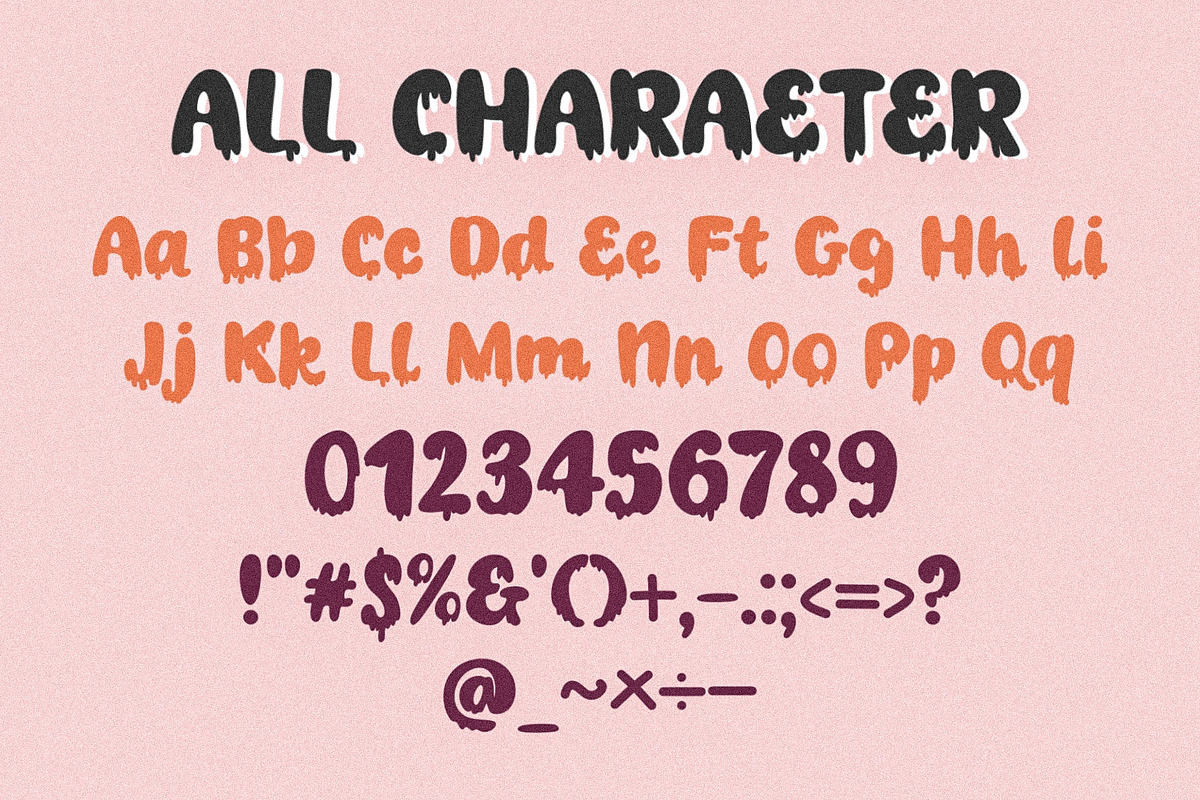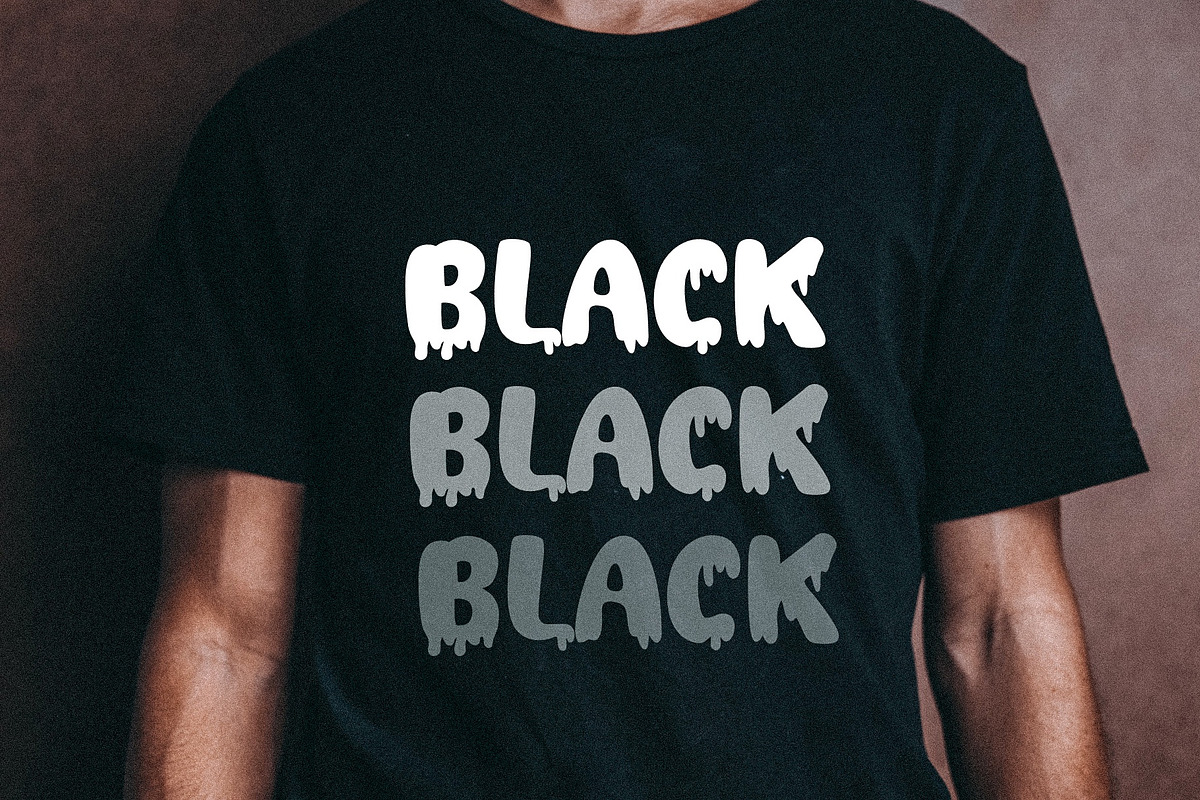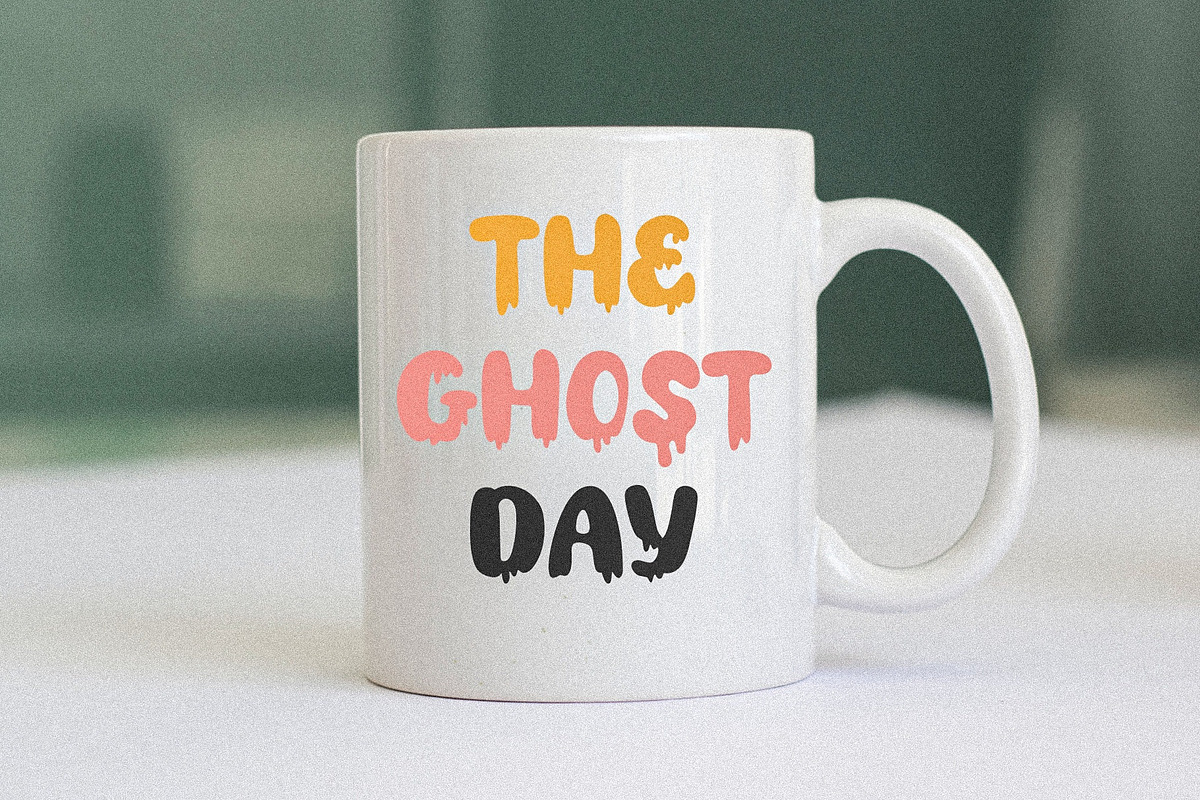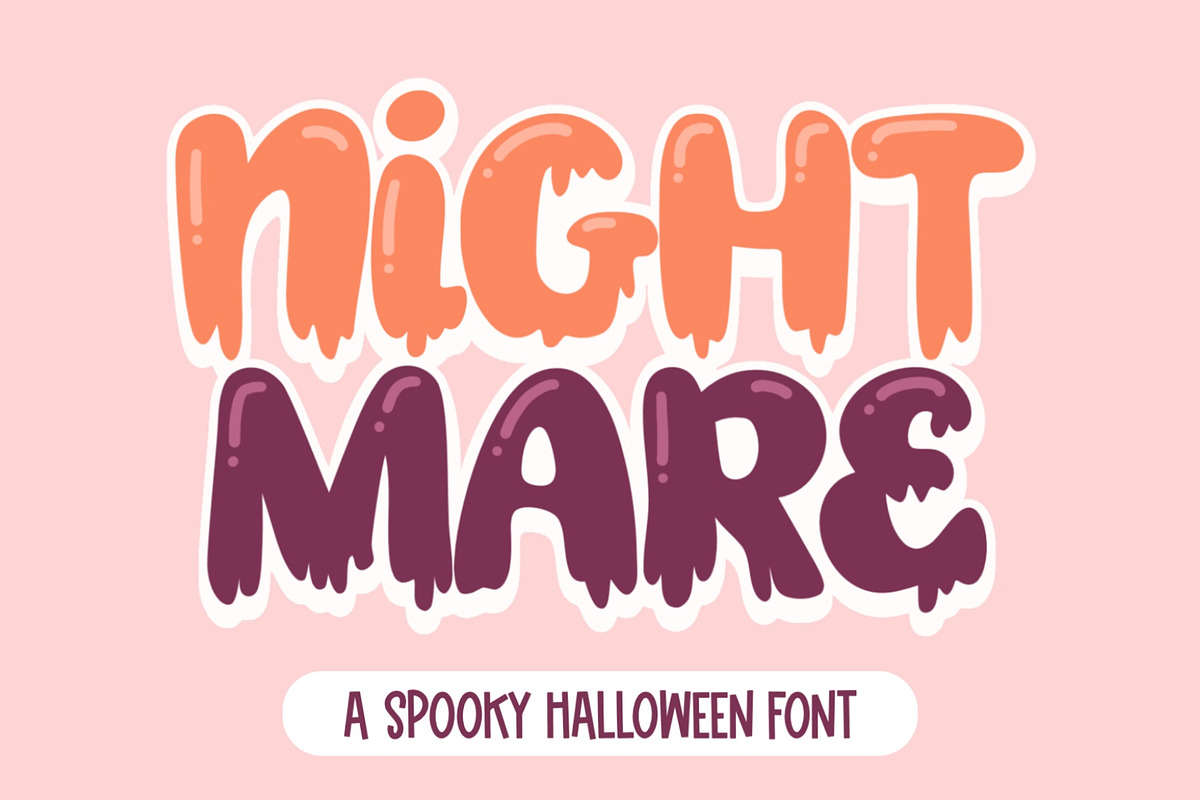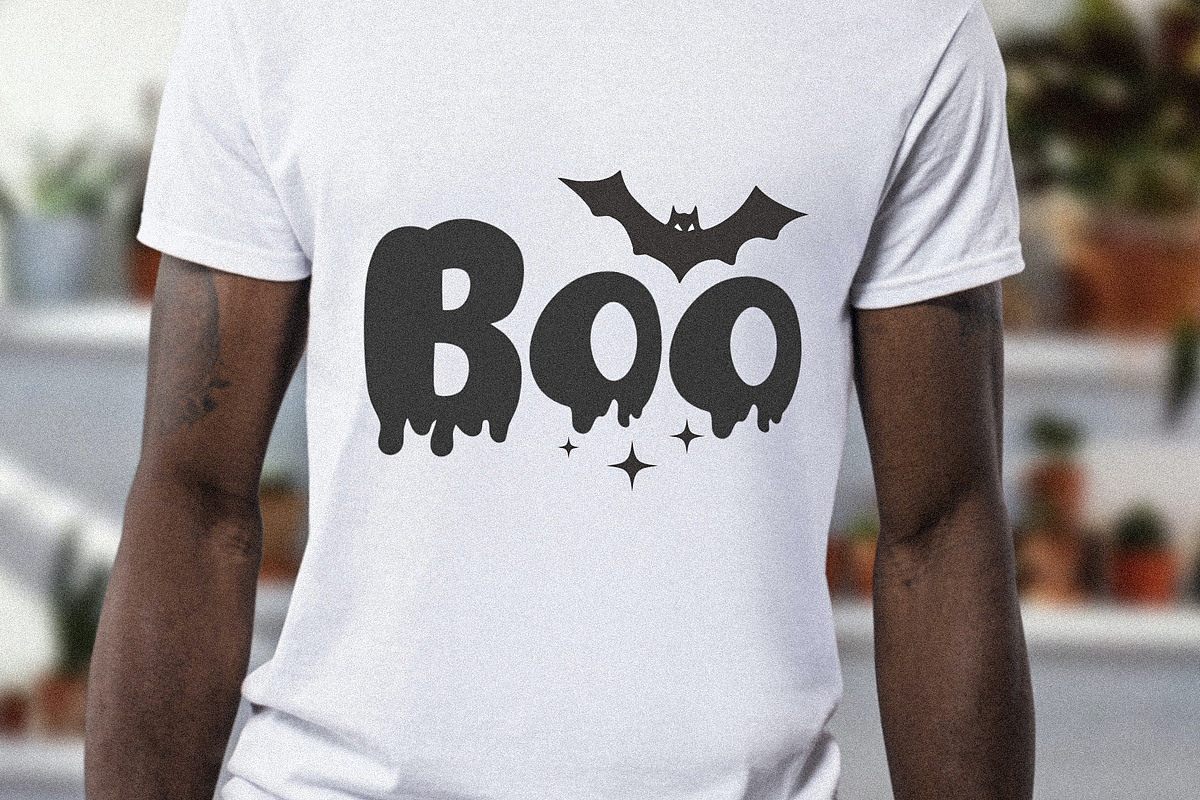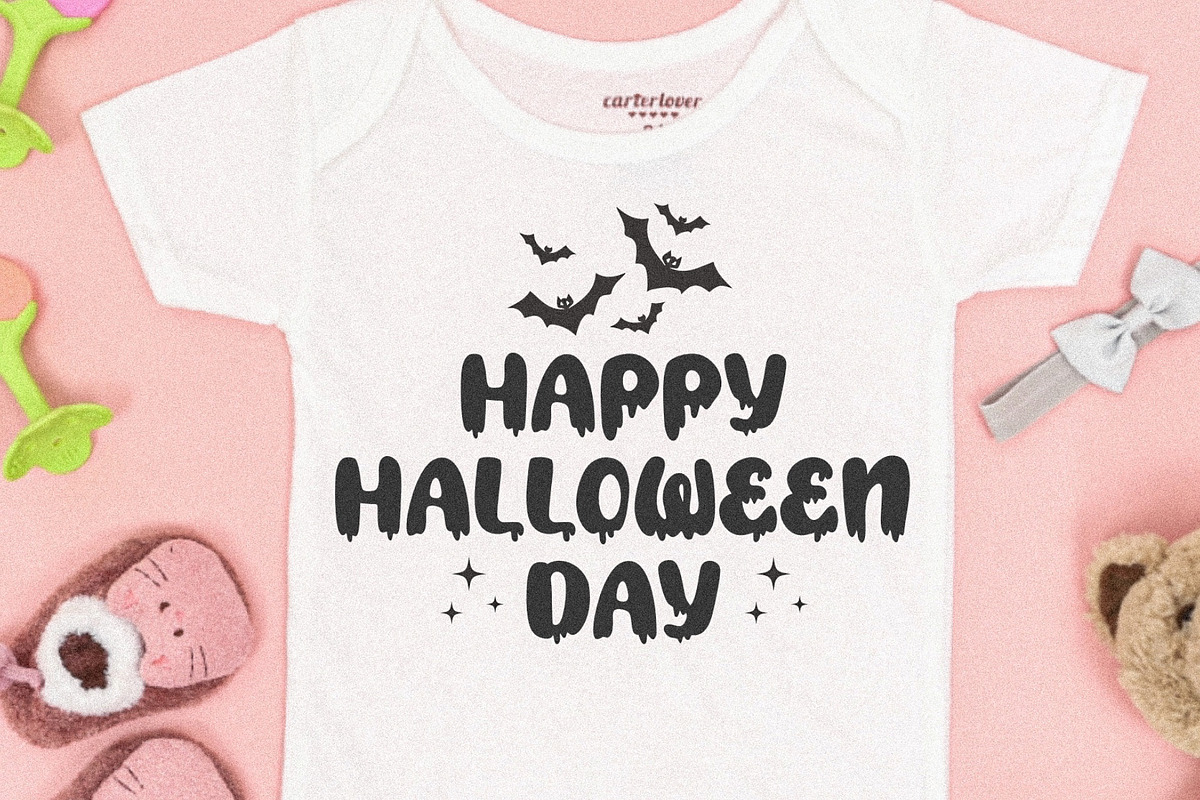
Night Mare
Unleash the dark enchantment of the Night Mare Font! This hauntingly beautiful typeface is perfect for adding a touch of mystery and intrigue to your designs. With its elegant yet eerie letterforms, Night Mare Font will take your projects to a whole new level of darkness.